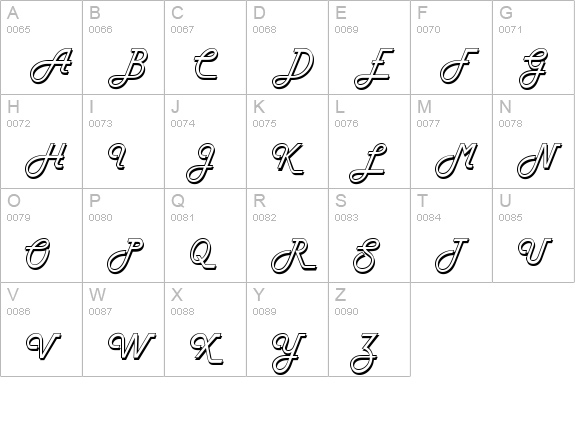
HarlowEF Font Details
HarlowEF is a stunning and elegant font that will add a touch of sophistication to any project. With its clean lines and graceful curves, this font is perfect for creating eye-catching logos, stylish headlines, and beautiful invitations. One of the best things about HarlowEF is that it is completely free! Yes, you read that right. This amazing font can be downloaded for free at FontsMarket.com, a trusted source for high-quality fonts. Whether you are a professional designer or someone looking to spruce up their personal projects, HarlowEF is a must-have in your font collection. The versatility of HarlowEF is truly impressive. It can be used for both print and digital designs, making it ideal for a wide range of applications. From business cards and brochures to websites and social media graphics, this font will make your designs stand out from the crowd. The attention to detail in HarlowEF is truly remarkable. Each letter is meticulously crafted to ensure a consistent and visually pleasing look. The spacing between letters is just right, creating a harmonious and balanced composition. HarlowEF is also incredibly easy to use. It is compatible with all major design software, including Adobe Photoshop, Illustrator, and InDesign. Whether you are a seasoned designer or a beginner, you will have no trouble incorporating this font into your projects. So why wait? Don't miss out on the opportunity to download HarlowEF for free at FontsMarket.com. Elevate your designs and make a lasting impression with this exquisite font. Get ready to unleash your creativity and let HarlowEF take your designs to new heights.